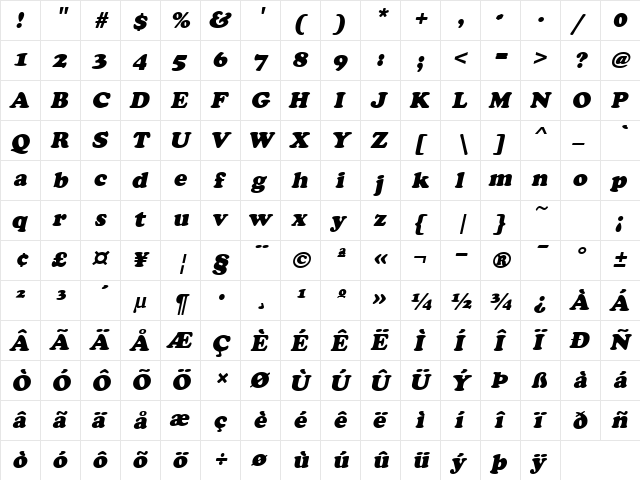
Marshmallow Italic Font Preview
Marshmallow Italic
Design Context for Marshmallow Typeface
Marshmallow offers clean, dependable letterforms without strong stylistic allegiance, making it a practical choice for designers who need flexibility. The dynamic lean of this cut emphasises speed and emphasis in any layout.
Pro Tip: Try Marshmallow for annotation and caption copy alongside an upright companion — the contrast in angle creates a dynamic but ordered typographic system.